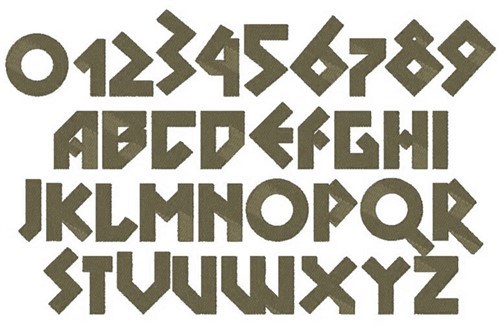
Unicorn Creatives is happy to present Socrates Embrilliance Embroidery Font - Bold Angular Block Style - BX font machine embroidery font which has Bold block machine embroidery font ideal for unique designs on jackets and banners. The geometric letters project strength and modernity, available in Embrilliance format and BX font. included. If you would like to view more embroidery fonts and alphabets please search our embroidery fonts page.
Socrates Embrilliance Embroidery Font - Bold Angular Block Style - BX font